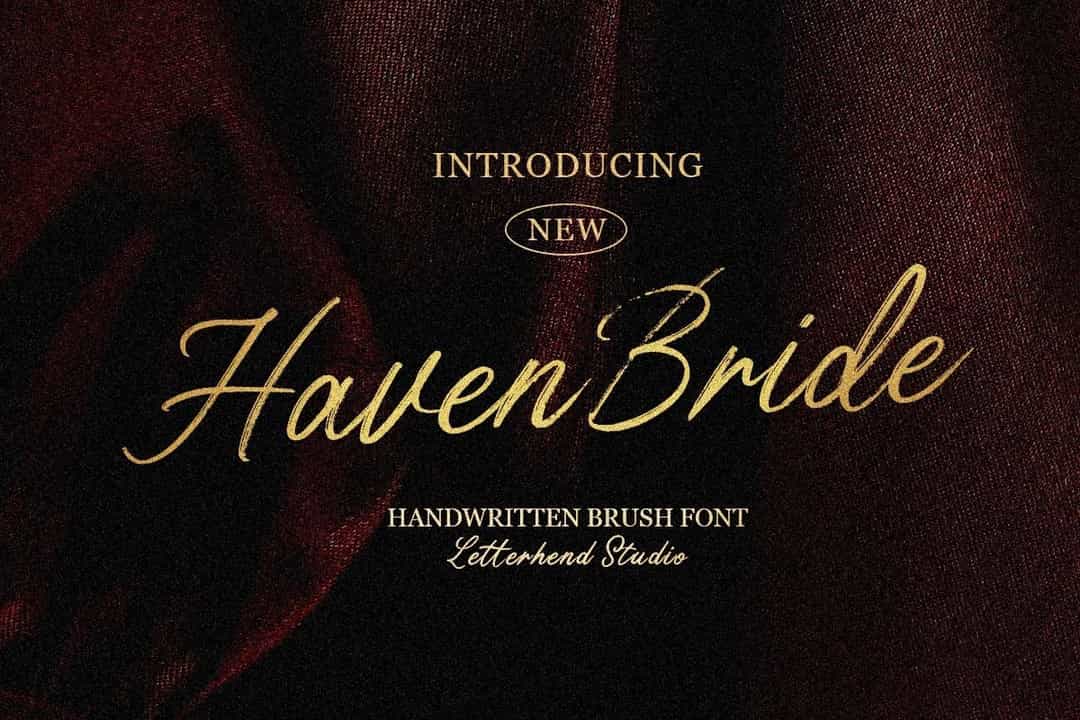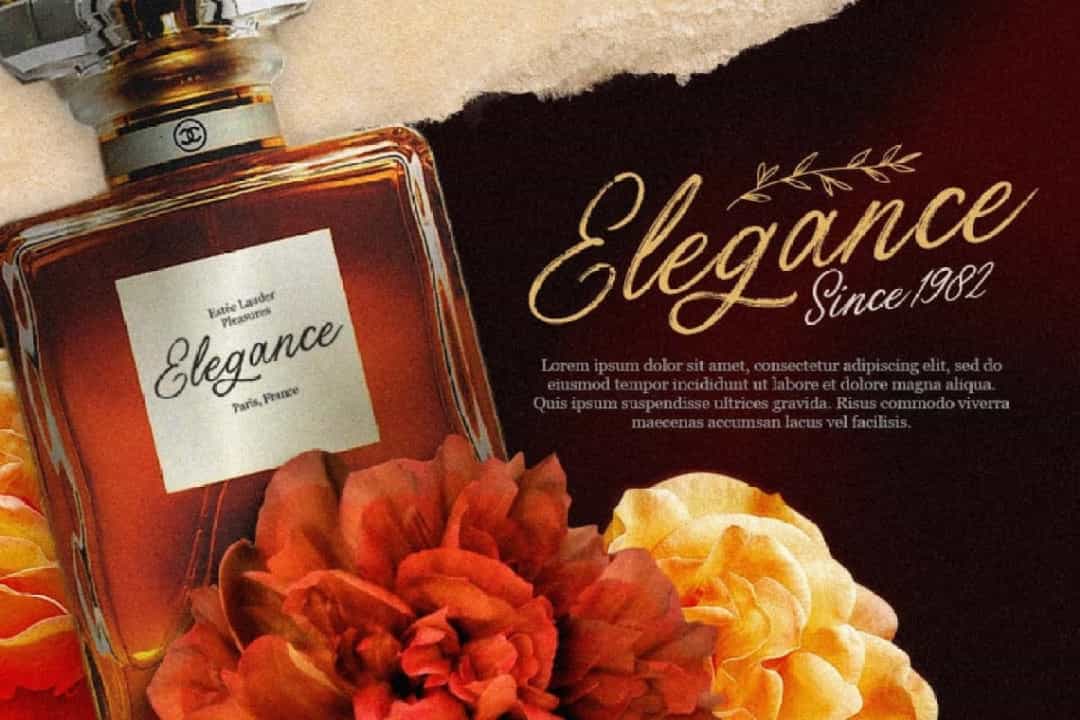
Haven Bride is an exquisite brush script font that perfectly captures the casual handwritten aesthetic. With its natural, casual chic style, it makes Haven Bride the ideal font choice for logos, branding and formal designs like labels, invitations and books; as well as for greeting cards, wedding or anniversary cards packaging fashion makeup stationery books labels or any advertising requirement where stylish appearance is desired.